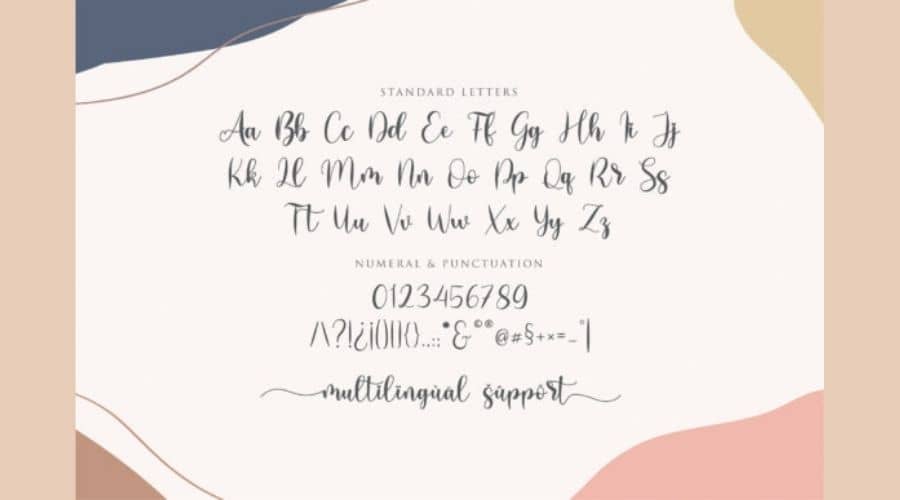
Lovely Girly Calligraphy Font
Lovely Girly Font is a casual and pretty modern calligraphy typeface. Open type, including start and terminal letters, alternates, ligatures, and international support for most Western languages, is available in Lovely Girly. This typeface is available for personal use at no cost. The Font is designed and published by Sigit Dwipa. The Font was uploaded on June 1, 2020. It features beautiful swashes that are ideal for any creative project. This handcrafted typeface will give each aspect of your design a lovely natural feel. Because this Font is PUA encoded, you can easily access all of the magical glyphs and swashes!
The Font can be used for various things: titles, signatures, logos, wedding invites, letterhead, signage, labels, bulletins, posters, badges, etc. It has a sleek and sophisticated appearance that may be used to bring a unique personal touch to your projects. It’s a flowing Script and Calligraphy font with an elegant touch that’s ideal for your next project.
| Name | Lovely Girly Calligraphy Font |
| Style | Script, Calligraphy |
| Designer | Sigit Dwipa |